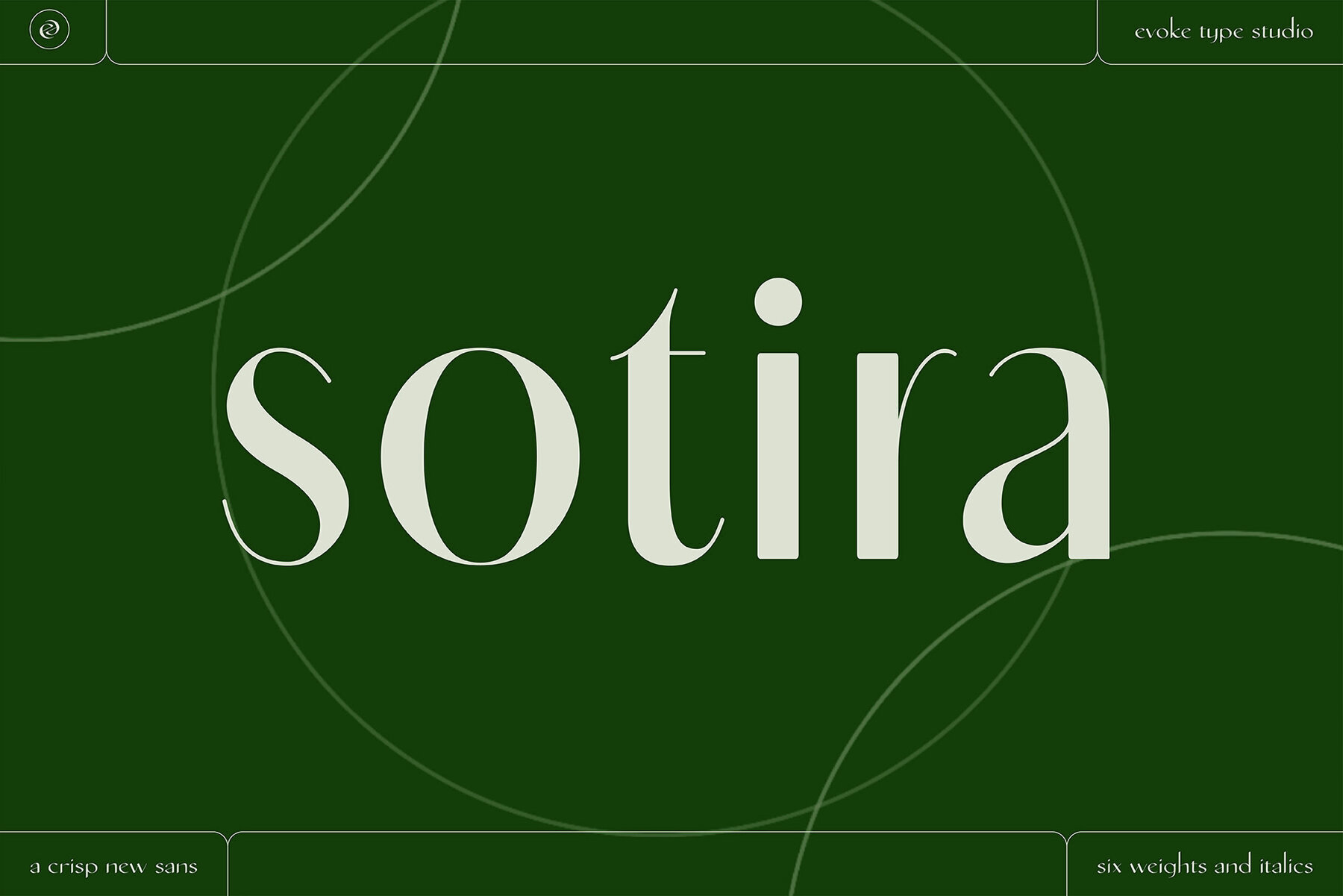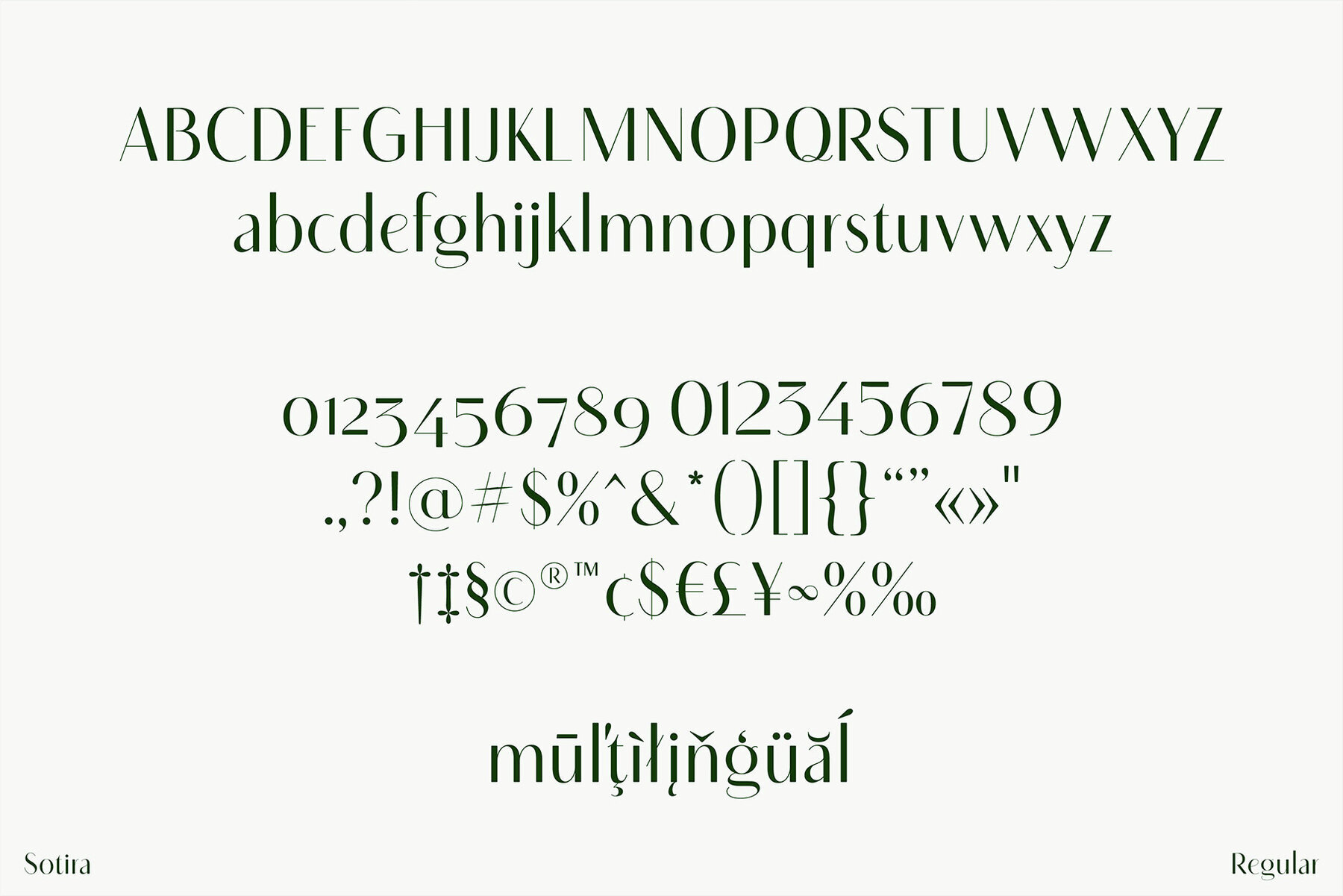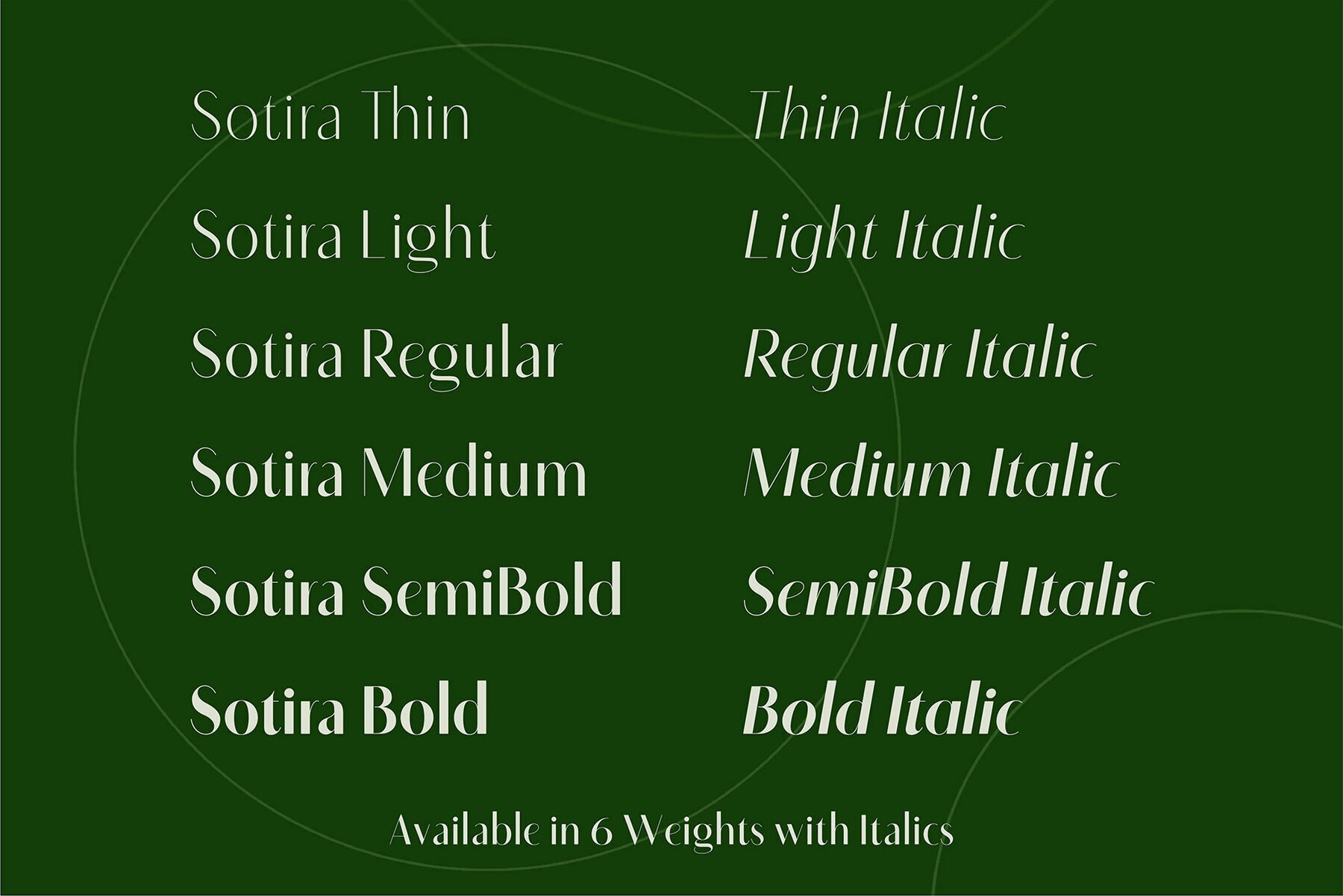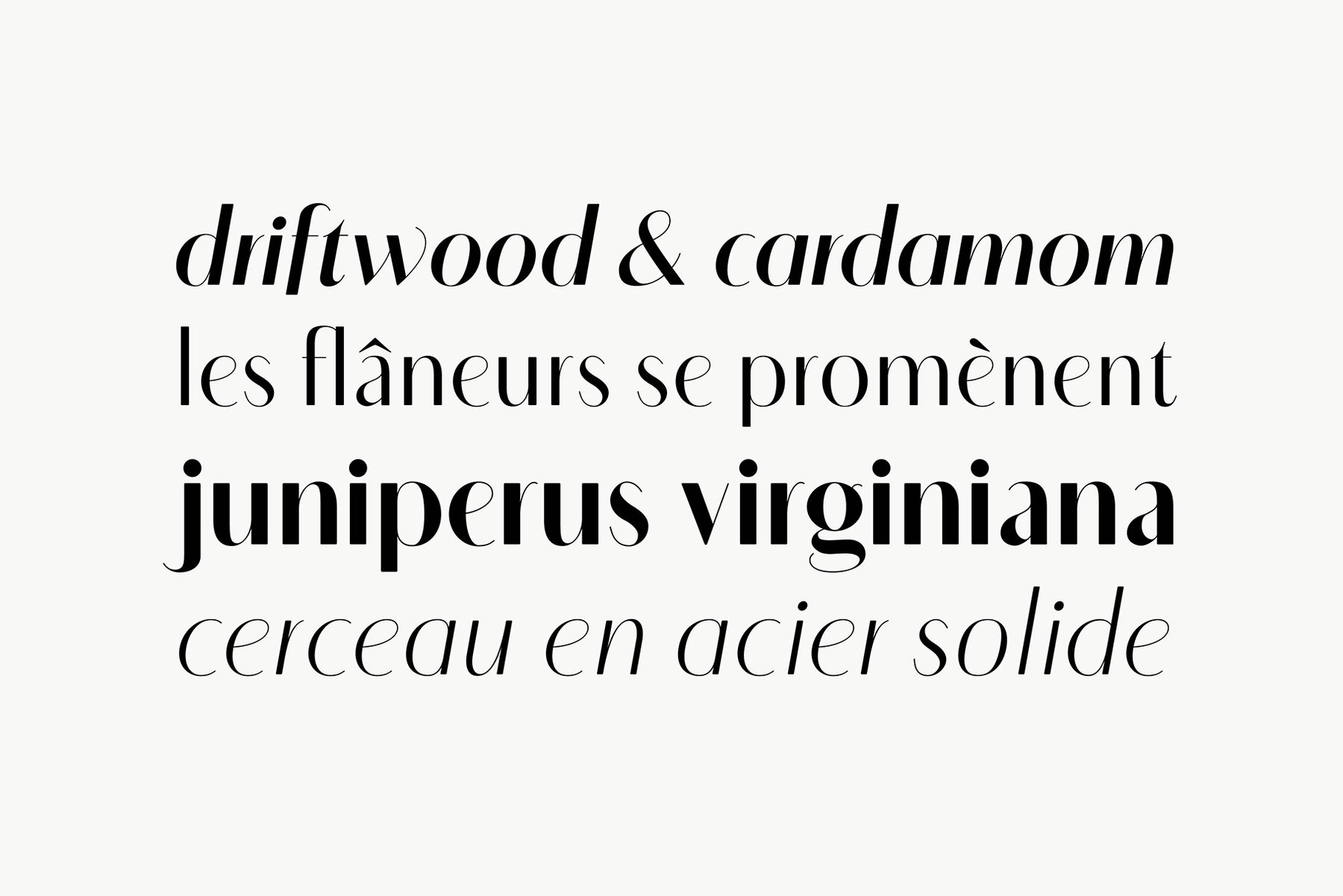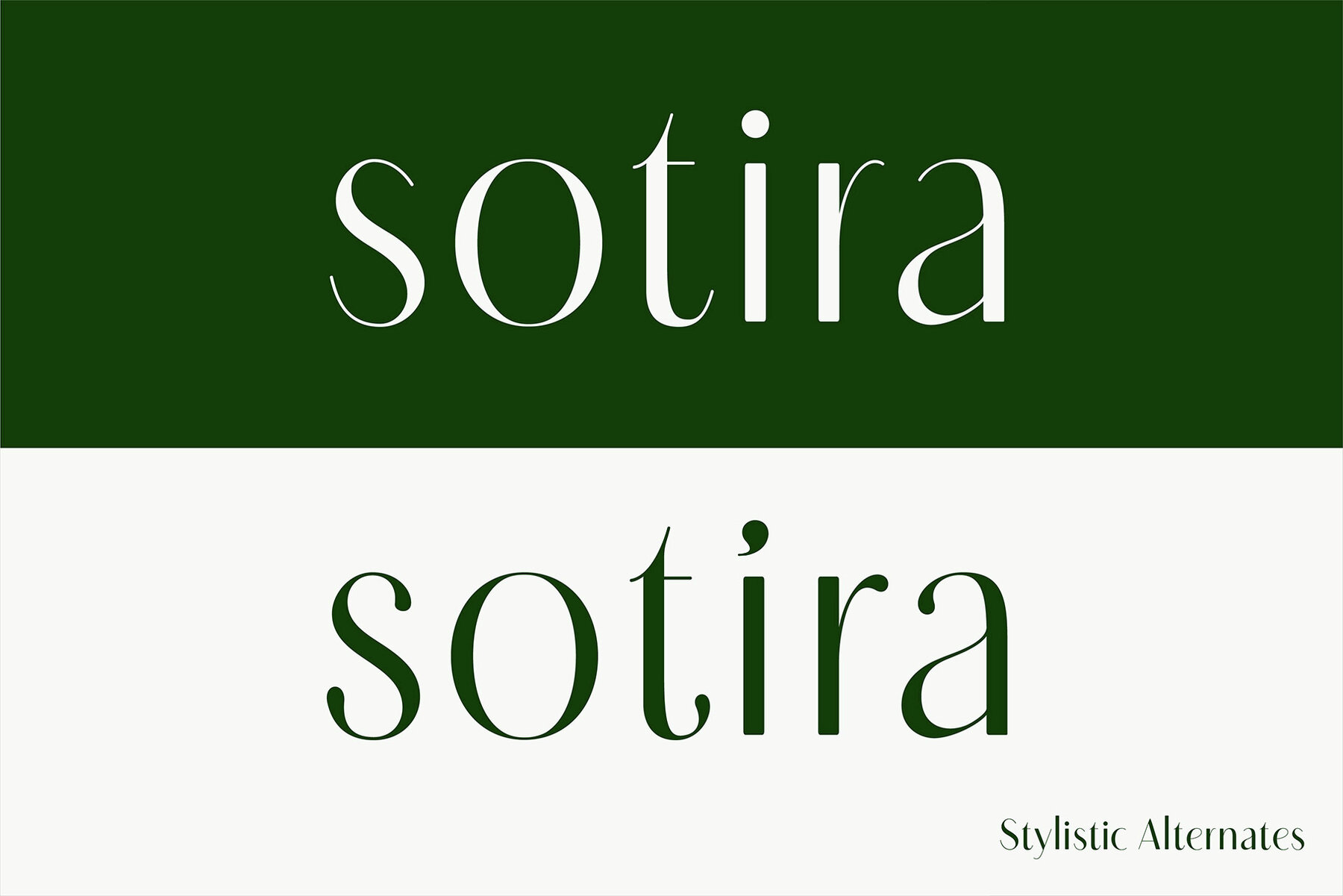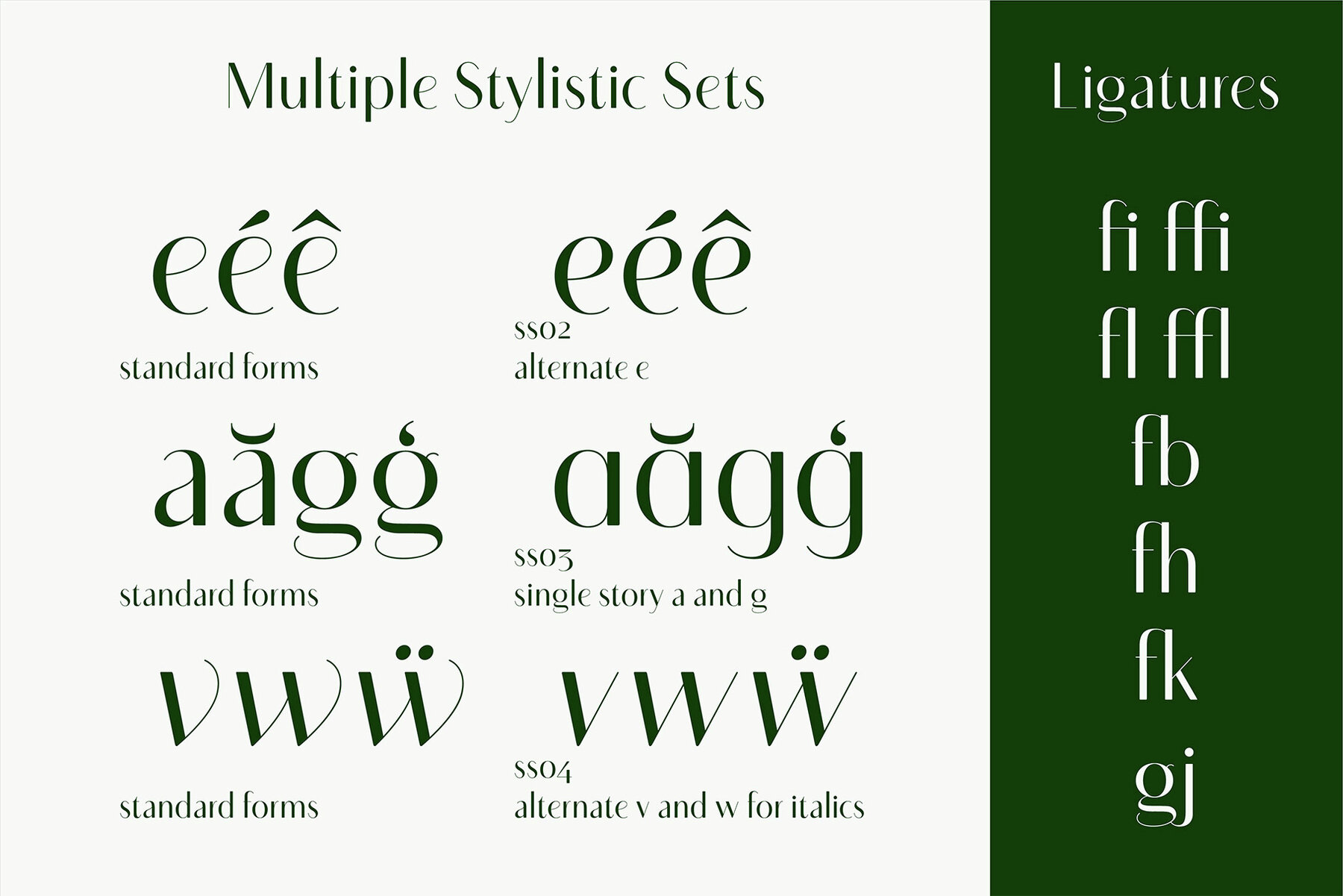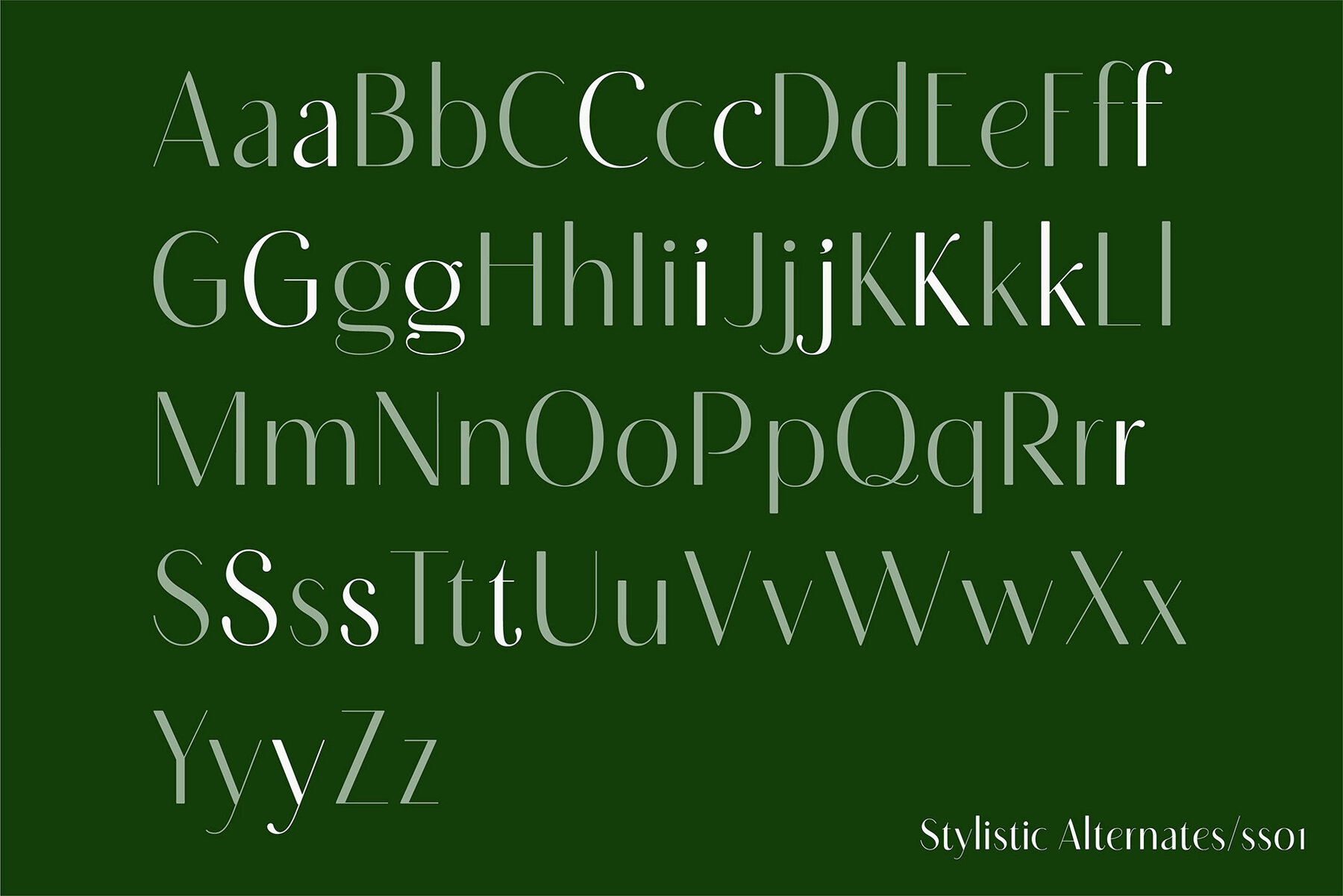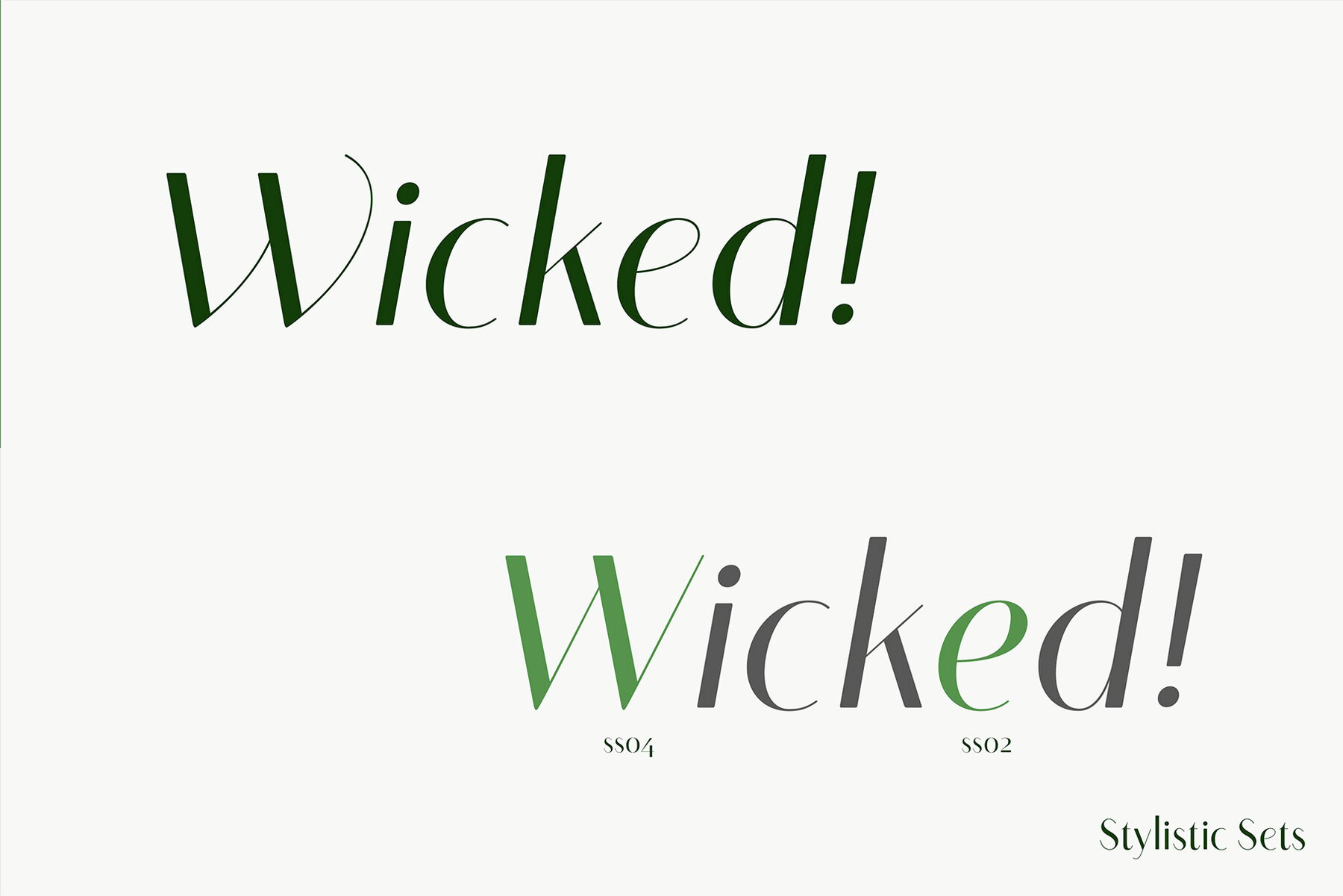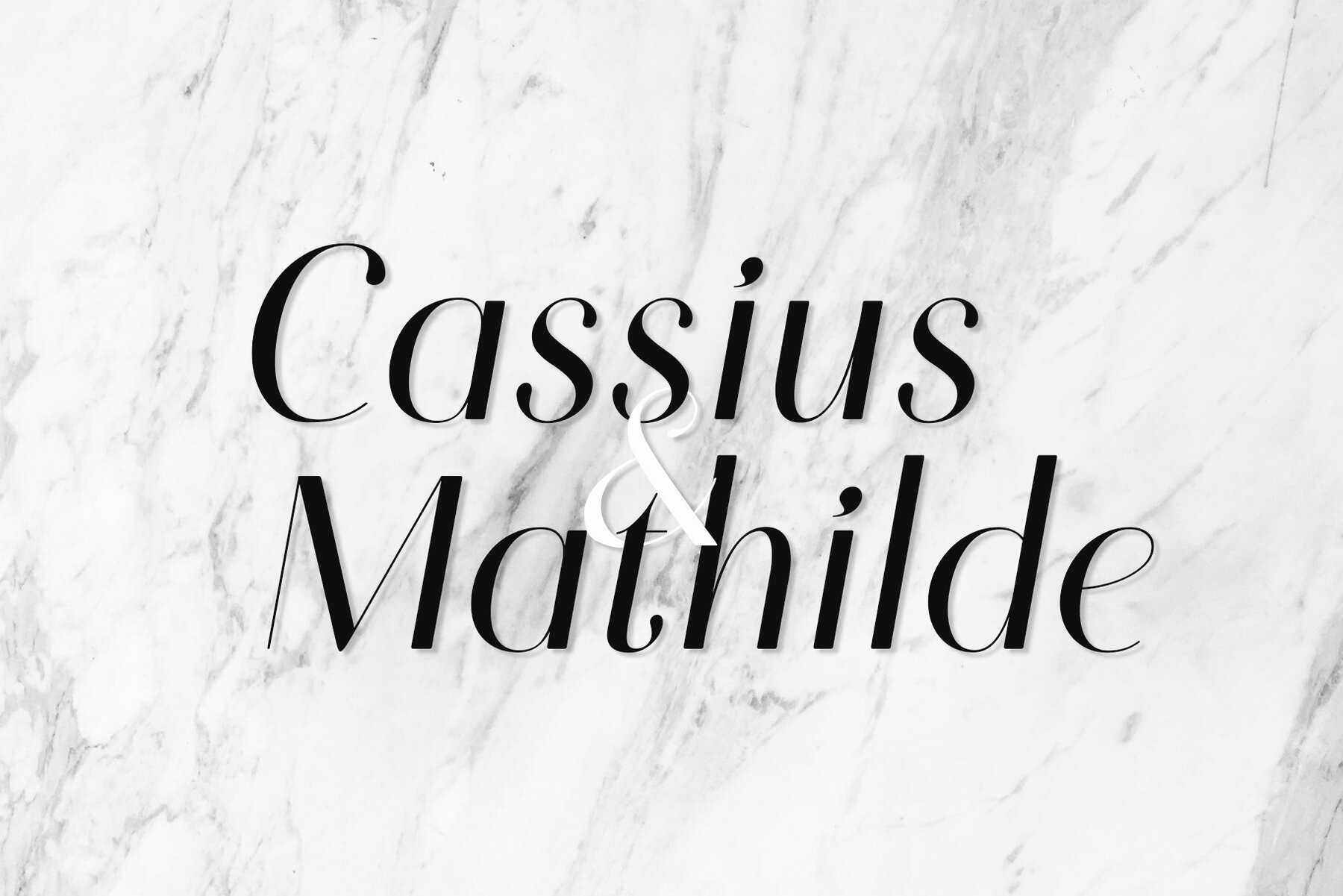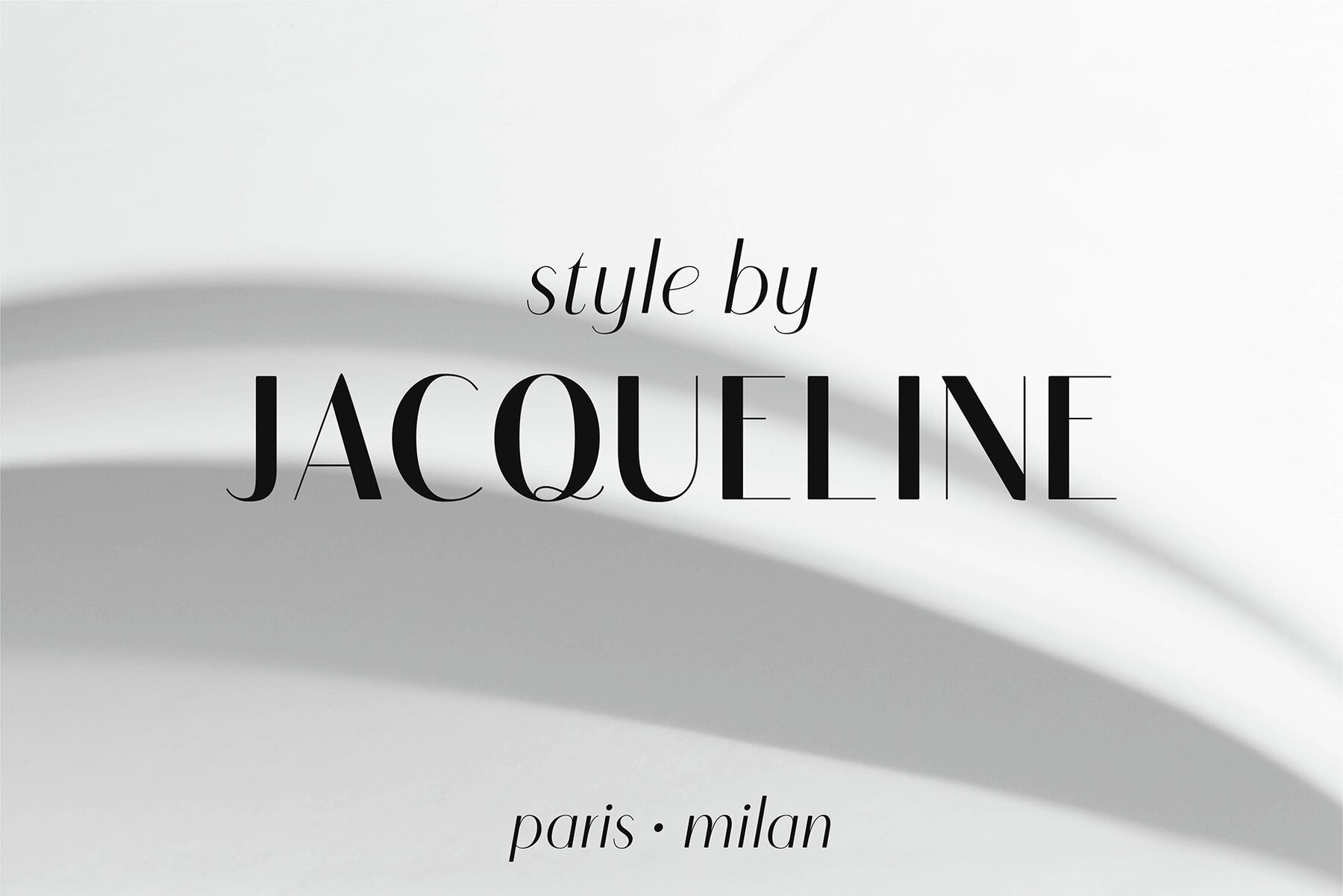
Sotira Font
Sotira is a high contrast sans serif display font intended for designs where the user is seeking a clean and modern yet approachable look. With 6 different weights and italics, this font family brings versatility to packaging and poster designs. For even more flexibility, there is also a stylistic alternate variation which adds teardrops to some glyph terminals, as well as a few other stylistic sets for select alternate characters. This font supports Central and Western European languages, and even includes stylistic variations for applicable diacritics. With all this functionality, the Sotira font family is sure to grant you plenty of options for your contemporary designs, you’ll feel as if you have multiple looks at your fingertips. PUA encoded.